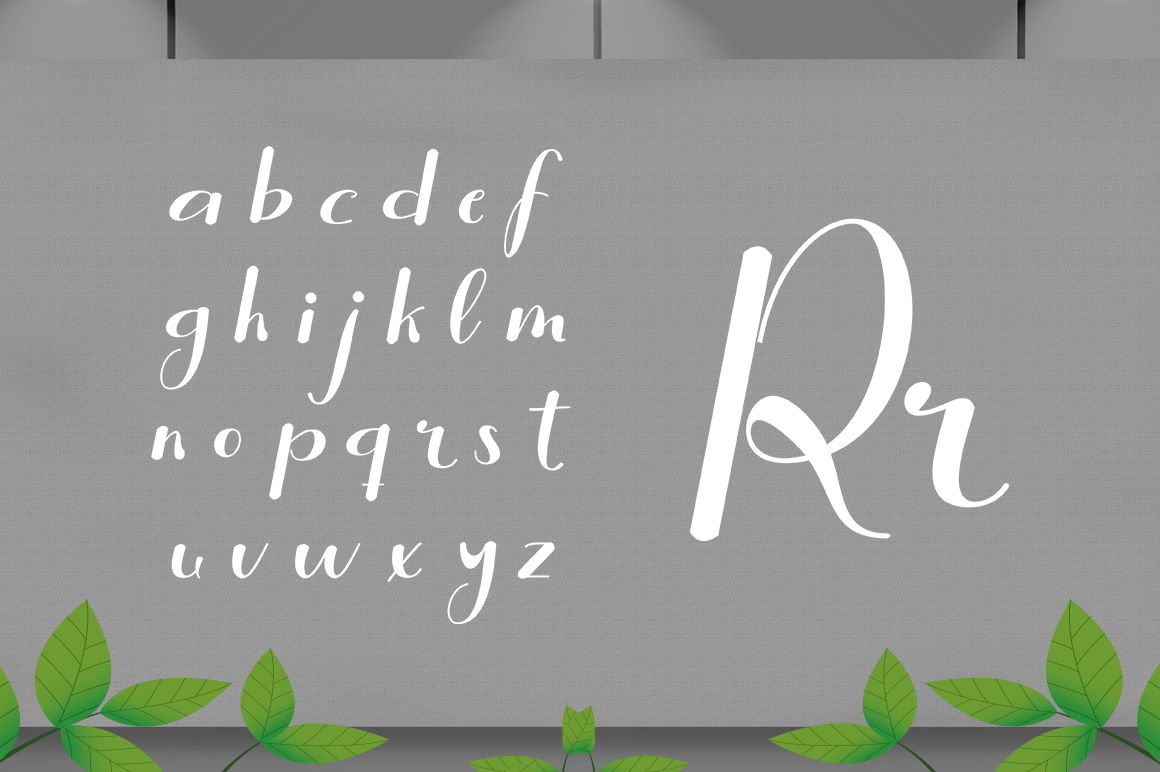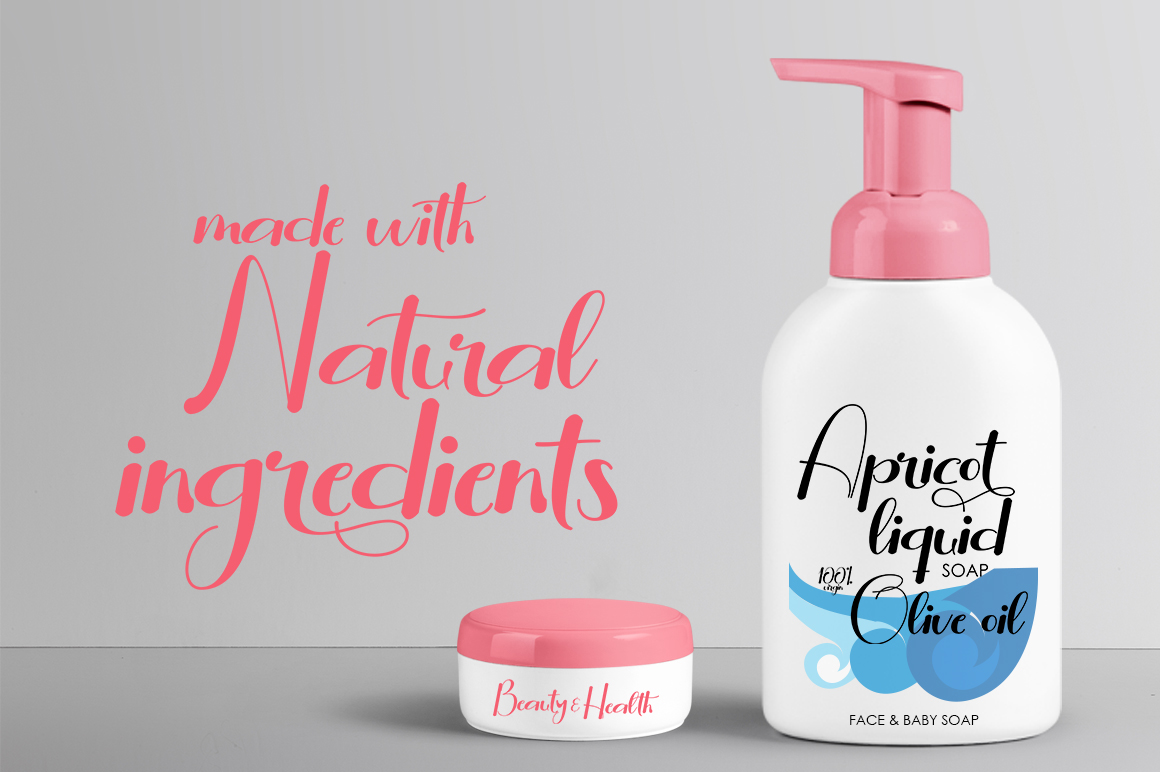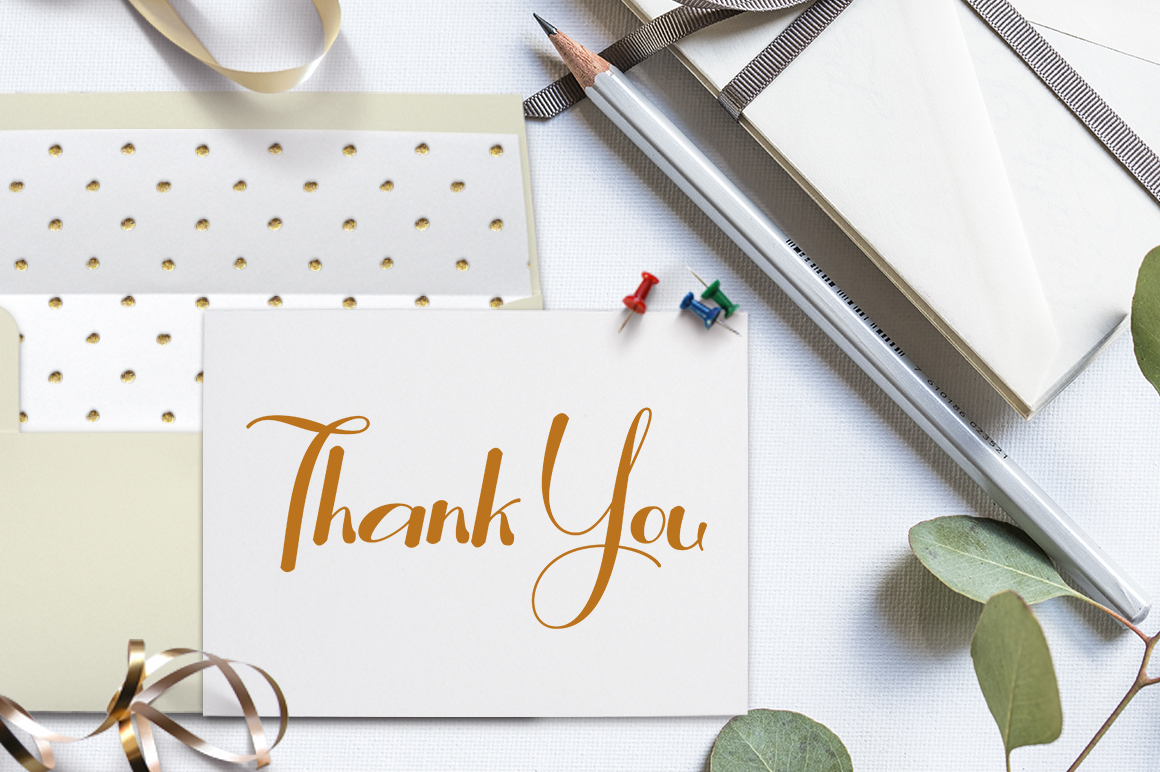
Introduction to Rollent Font
Have you ever been in the middle of a creative project, surrounded by scribbled notes and half-finished sketches, when suddenly the perfect font pops into your head? For designers, finding the right typography can be the difference between a mediocre design and a truly stunning one. That’s why the discovery of Rollent Font is a game-changer.
This free-flowing typeface has an organic feel that’s reminiscent of hand-painted brushstrokes. Every letter is carefully crafted by hand, giving it a unique and high-quality look that’s perfect for designers looking to add some personality to their projects. With a transparent background, Rollent Font can be easily layered over any design element, making it a versatile design resource that’s sure to become a favorite among creatives.
Key Features of Rollent Font
- Perfect for use in digital designs, including logos, icons, and graphics, due to its high-resolution and versatile design.
- Designed to be a modern and sleek design resource, ideal for adding a touch of sophistication to any creative project.
Honest Review: Rollent Font
I recently had the chance to work with the Rollent Font in a creative project and I’m excited to share my honest thoughts about this design resource. Overall, I’m really impressed with the high quality of this font.
- Clean and modern design aesthetic that’s perfect for contemporary projects
One of the standout features of the Rollent Font is its versatility. It’s suitable for a wide range of creative projects, from logos and branding to digital products and print materials.
- May not be suitable for projects that require a more classic or traditional font style
- Some users may find the font’s modern aesthetic too bold or attention-grabbing
Overall, I’m really impressed with the Rollent Font and I would definitely recommend it to designers looking for a high-quality, modern font for their creative projects.
Tips for Getting the Most Out of Rollent Font
When using the Rollent Font, consider the following tips: use it with a transparent background for a clean and modern look, experiment with different font sizes and styles to create visual interest, and pair it with other high-quality design resources to create a cohesive design.
The Rollent Font is a versatile design resource that can be used for a variety of creative projects, including graphic design, branding, and digital marketing. It’s also a great resource for designers who want to create high-quality, professional-looking designs without breaking the bank.